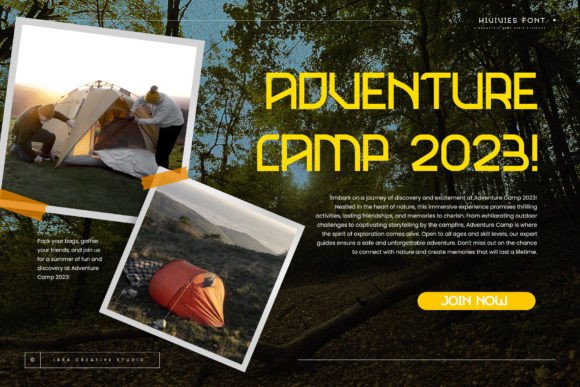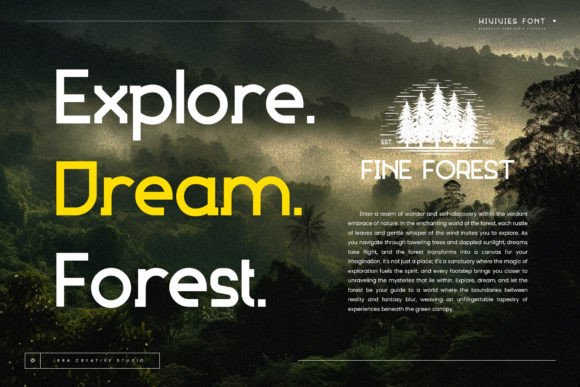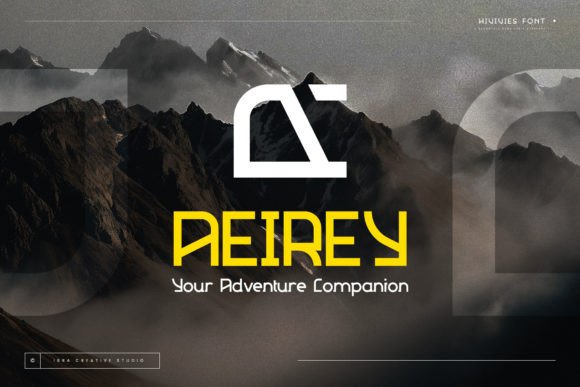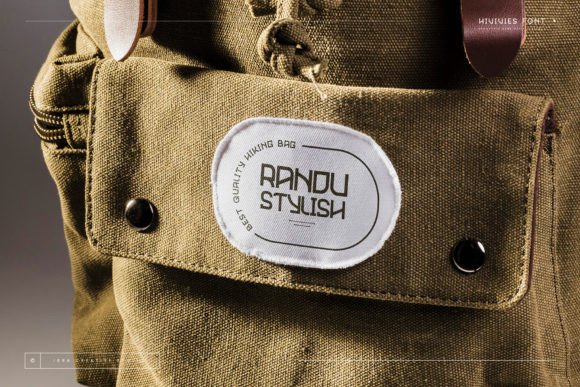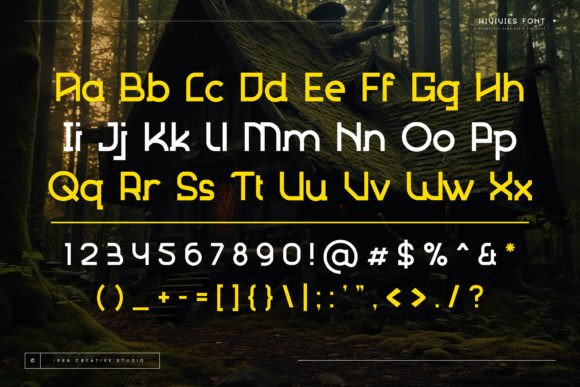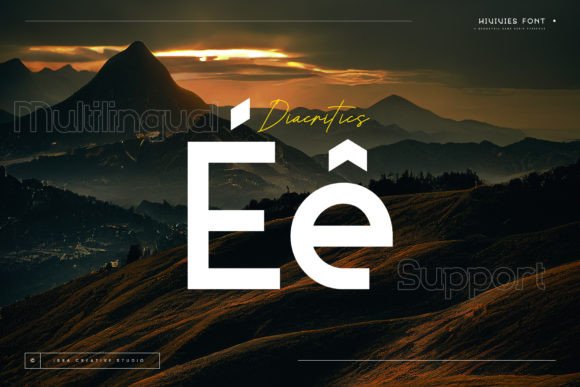
Introduction to Hivives Font
As a designer, you’ve likely found yourself in a moment of creative frustration, staring at a blank canvas, wondering how to bring your vision to life. For me, it’s often the typography that sets the tone for the entire project. That’s where Hivives Font comes in – a game-changing design resource that’s been a staple in my toolkit for years.
With its unique blend of precision and warmth, Hivives Font is the perfect solution for designers looking to elevate their creative project. Whether you’re working on a high-profile branding campaign or a personal passion project, this versatile font is sure to impress. And the best part? It’s available for free download, making it an accessible design resource for creatives of all levels.
One of the standout features of Hivives Font is its ability to work seamlessly on a transparent background, allowing your design to shine with a level of sophistication and elegance that’s hard to find in other fonts.
Key Features of Hivives Font
- High-quality design resource ideal for creative projects, offering a unique and stylish aesthetic.
- Transparent background, allowing for easy layering and customization in your design project.
- Available in multiple font styles and weights, providing versatility for a range of creative applications.
- Designed with a modern and trendy look, making it perfect for graphic designers, digital artists, and other creatives working on innovative projects.
Honest Review: Hivives Font
As a designer, I’m always on the lookout for high-quality design resources to elevate my creative projects. Recently, I stumbled upon the Hivives Font, and I must say, it’s a gem.
Here’s what I love about the Hivives Font: ✨ It’s free to download, which is a major plus for indie designers and small businesses. The font is also available in various formats, making it easily accessible for use in various design applications. The transparent background option allows for seamless integration with any design element, giving me more creative freedom. Additionally, the font’s modern and sleek design makes it perfect for a wide range of creative projects, from logos to digital products.
However, there are some limitations to consider: ⚠️ The font’s legibility can be a bit of a challenge, especially at smaller font sizes. Additionally, the font’s weight and style options are limited, which may not be suitable for every design project.
Overall, I’m impressed with the Hivives Font. Its high quality and versatility make it a valuable addition to my design resource library. While it may have some limitations, I believe it’s well worth the free download. If you’re looking for a modern and sleek font for your next creative project, I’d definitely recommend giving the Hivives Font a try.
- Modern and sleek design
- Limited legibility at smaller font sizes
- Limited weight and style options
The Hivives Font is a high-quality design resource, perfect for adding a unique touch to your creative project. It’s available for free download and features a transparent background, making it easy to customize.
Common Use Cases for Hivives Font
The Hivives Font is perfect for a variety of creative projects, including branding, marketing materials, and social media graphics. Its unique design makes it a great choice for adding a touch of personality to your designs.
Yes, the Hivives Font features a transparent background, making it ideal for designers who want to create visually appealing and high-quality designs with a clean and minimalist aesthetic.